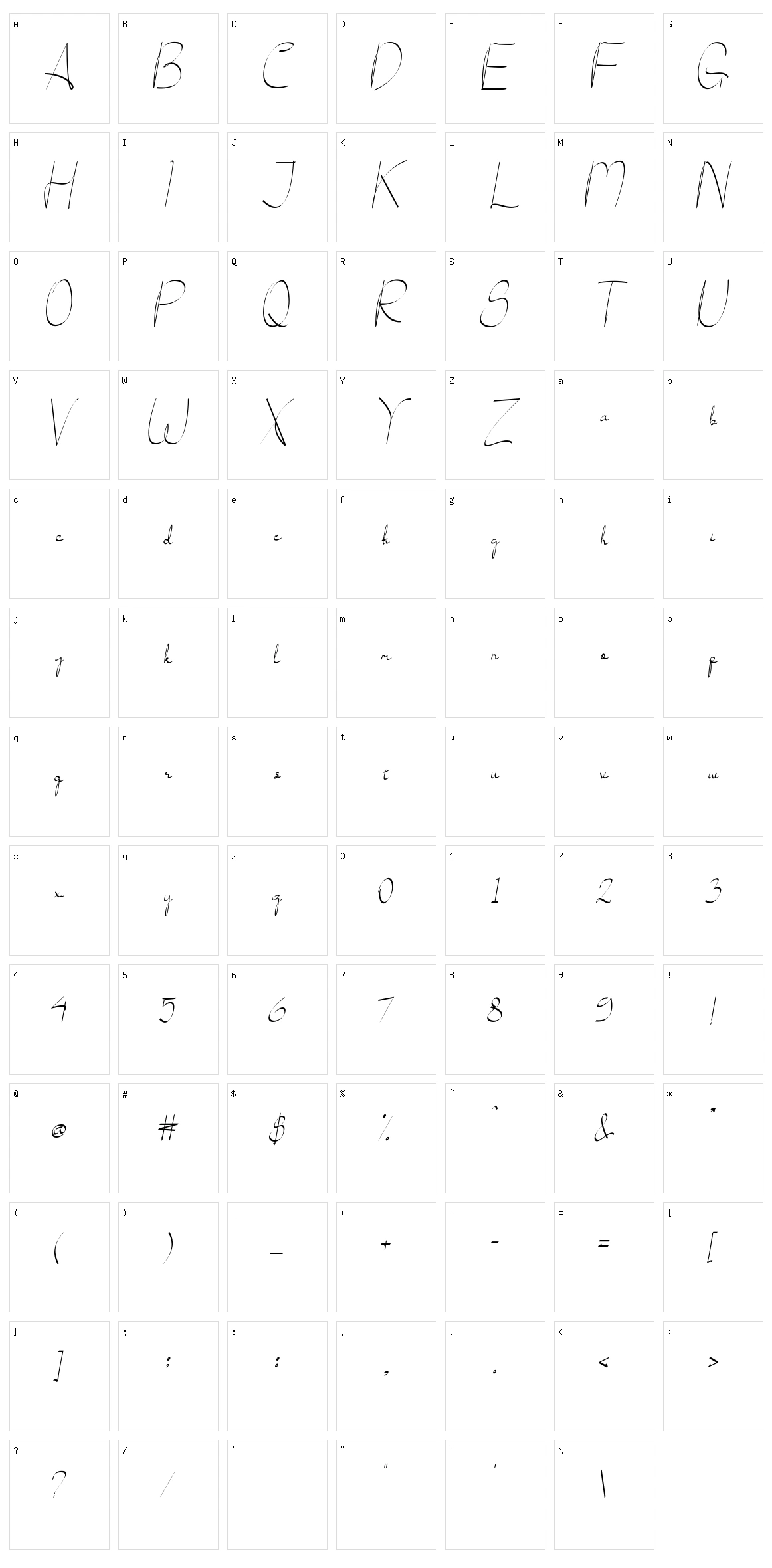
The free font Taylilla is carefully designed by Jadatype, showcasing a thoughtful balance of creativity and usability and falls under the Script font style. When you download the ZIP file, it contains only 22.87 KB of font files, making it lightweight and quick to download. Please review the license details below to understand permitted usage and distribution rights. If license information is not available, we recommend using this font for personal projects only or contacting the author directly for commercial usage permissions.